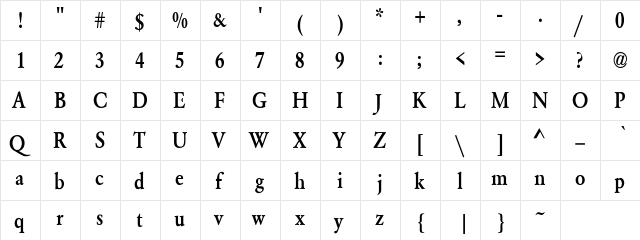
GaramondMediumC Regular Font Preview
GaramondMediumC Regular
GaramondMediumC Regular Font Details
Design Context for GaramondMediumC Typeface
GaramondMediumC offers clean, dependable letterforms without strong stylistic allegiance, making it a practical choice for designers who need flexibility.